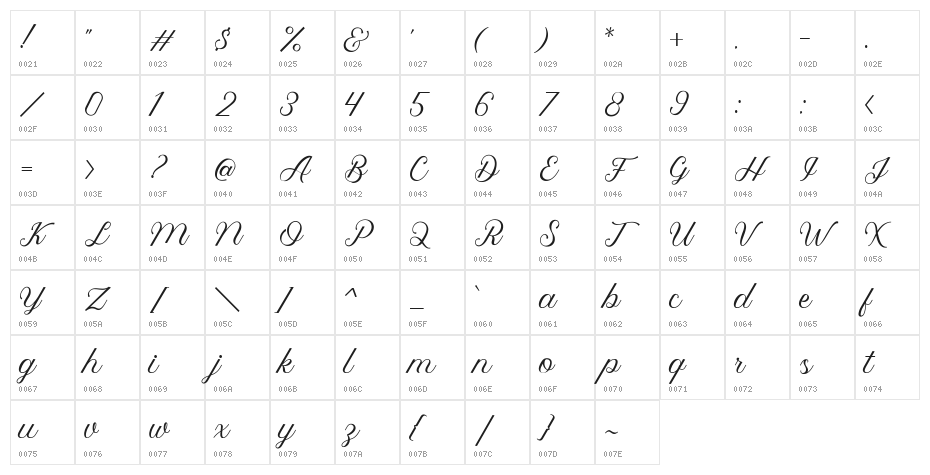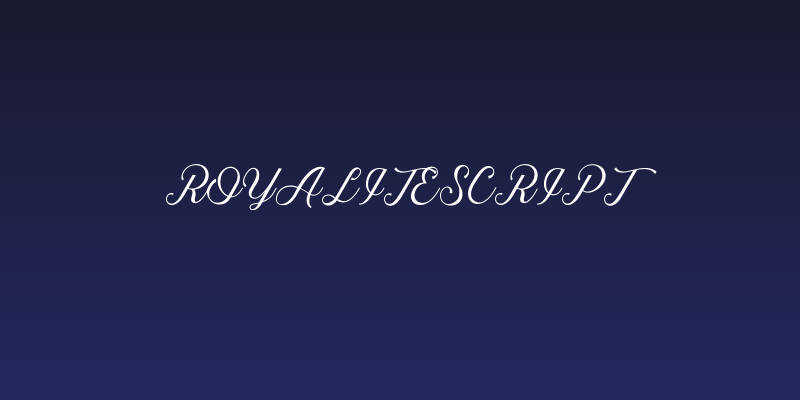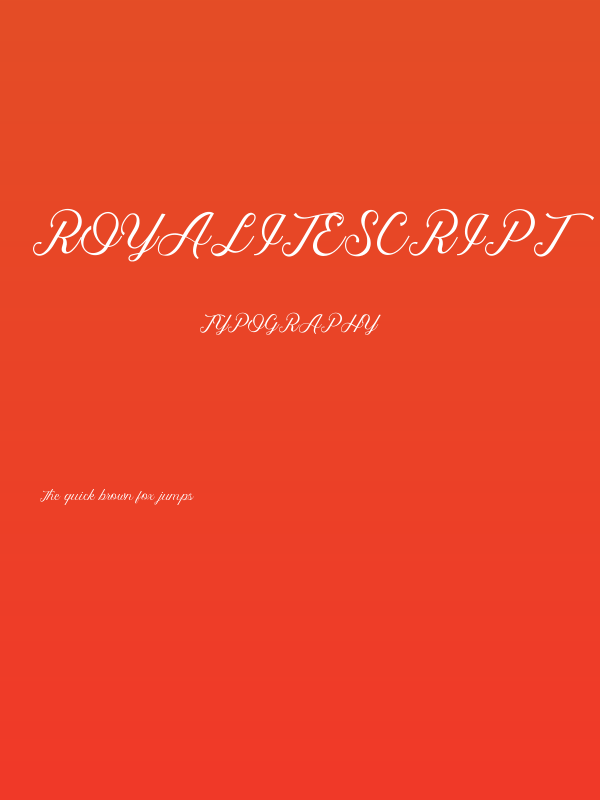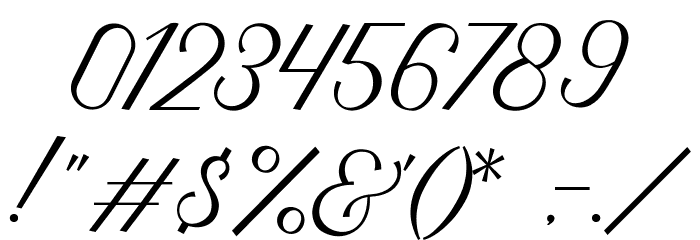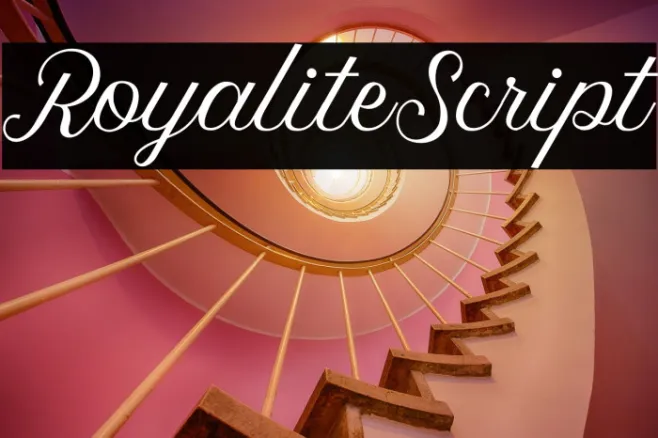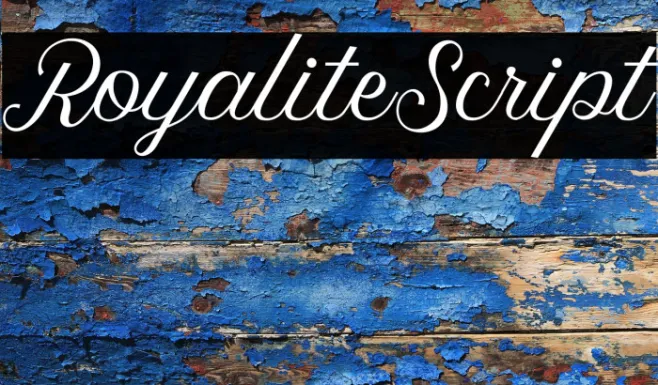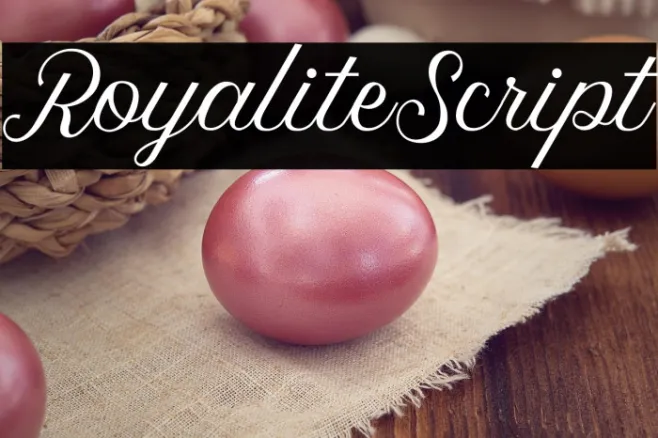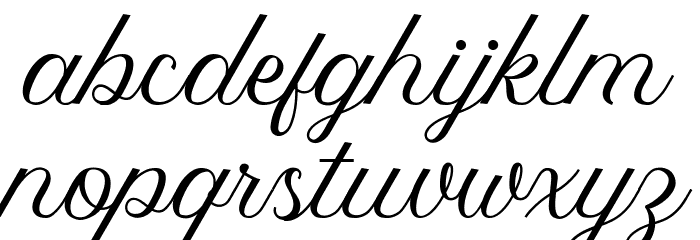
RoyaliteScript Font
RoyaliteScript Description
This elegant script font features a flowing, cursive style with smooth, rounded edges and a graceful, handwritten appearance. The uppercase letters are slightly larger and more ornate, while the lowercase letters maintain a consistent flow, creating a harmonious balance. The numerals are clear and legible, matching the overall aesthetic of the font. Special characters are included, maintaining the same fluidity and style as the alphabet. This font exudes sophistication and charm, making it ideal for formal invitations, branding, and decorative purposes.